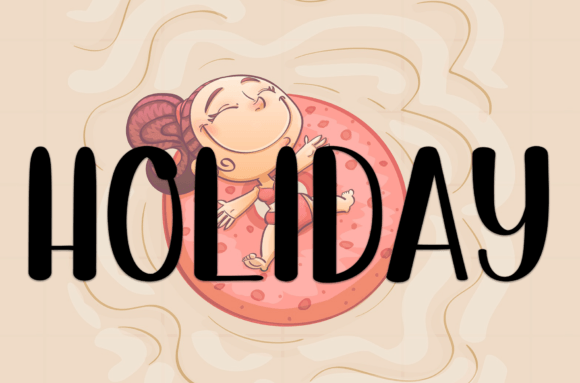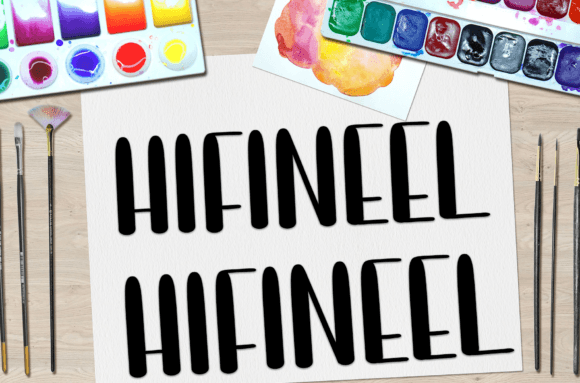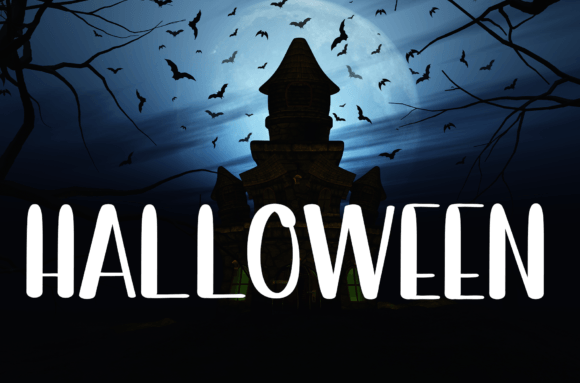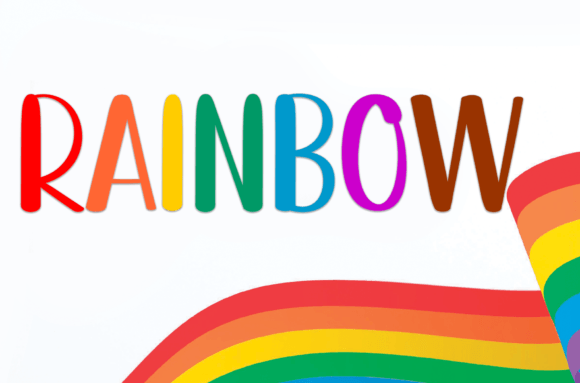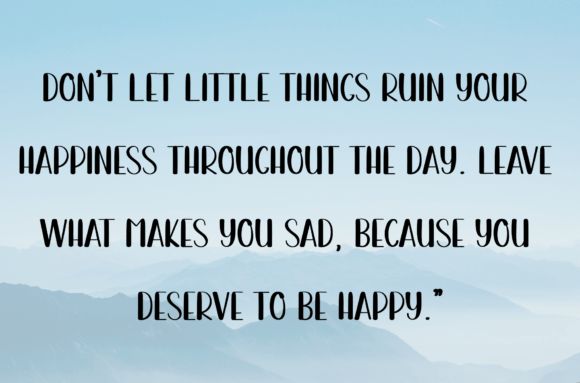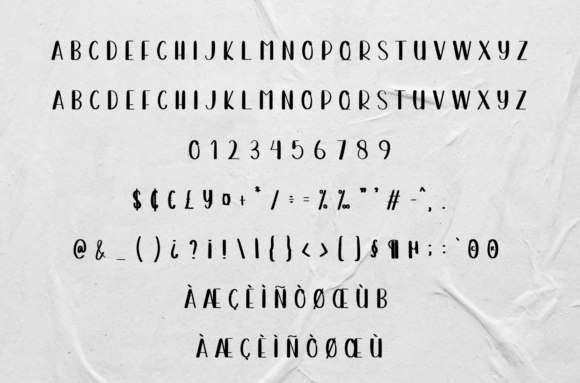
Adding a Personal Touch to Your Designs
Remember the thrill of brainstorming a new project and finally finding the perfect font to bring it to life? It’s that moment of excitement and inspiration that makes all the difference between a good design and a great one.
For designers looking to add a personal touch to their creative projects, we’re excited to introduce the Creative School Font – a cool and casual handwritten display font designed to make your designs stand out. With its unique, handcrafted feel, the Creative School Font is perfect for adding a touch of personality to your branding, social media graphics, and more.
Whether you’re a seasoned designer or just starting out, the Creative School Font is a valuable addition to your toolkit, offering endless possibilities for creative expression and self-expression.
Creative School Font Key Features
- Unique Characteristics: The Creative School Font features a unique, hand-drawn style with subtle flair and texture, giving it a distinctive and creative feel.
Review: Creative School Font
Overall, I’m impressed with the Creative School Font. It’s a great choice for designers looking for a modern, educational font that’s both functional and visually appealing.
- Modern aesthetic: The font has a clean, modern look that’s perfect for educational materials, websites, and branding.
- High legibility: The font is easy to read, making it perfect for body text and headings.
- Support for multiple languages: The font supports a wide range of languages, making it a great choice for international projects.
- Limited expressiveness: While the font is modern and clean, it may lack expressiveness and personality for more creative projects.
- No bold or italic weights: The font only comes in regular weight, which may limit its use for headings and emphasis.
The Creative School Font is a solid choice for designers looking for a modern, educational font. While it may lack expressiveness and have limited weight options, its high legibility and support for multiple languages make it a great choice for a wide range of projects.
Tips for Getting the Most Out of Creative School Font
Use the Creative School Font to add a touch of whimsy and playfulness to your designs. Pair it with bold colors and geometric shapes to create a visually appealing look.
Experiment with different font sizes and styles to create a sense of hierarchy and balance in your design.
The Creative School Font is perfect for:
Designing educational materials, such as worksheets and posters.
Creating playful branding for kids’ products and services.
Adding a touch of whimsy to marketing materials, such as brochures and flyers.
Great Vibes is a modern, elegant script font that is perfect for designs that require a touch of sophistication and creativity. It is ideal for use in branding, advertising, and editorial content. Great Vibes is more refined and polished compared to Creative School Font, which has a more casual and playful feel.
Pacifico is a beautiful, elegant script font that is reminiscent of a tropical paradise. It is ideal for use in designs that require a sense of relaxation and calmness. Pacifico is more cursive and flowing compared to Creative School Font, which has a more block-like feel.
Carolyna Pro is a modern, elegant script font that is perfect for designs that require a touch of sophistication and creativity. It is ideal for use in branding, advertising, and editorial content. Carolyna Pro is more versatile and adaptable compared to Creative School Font, which has a more limited range of uses.
For optimal readability, we recommend using a font size between 12pt and 14pt for body text, with a line height of at least 1.2 to 1.5 times the font size. This will provide a comfortable reading experience for most users. However, feel free to experiment with different font sizes and line heights to find the perfect balance for your specific design.